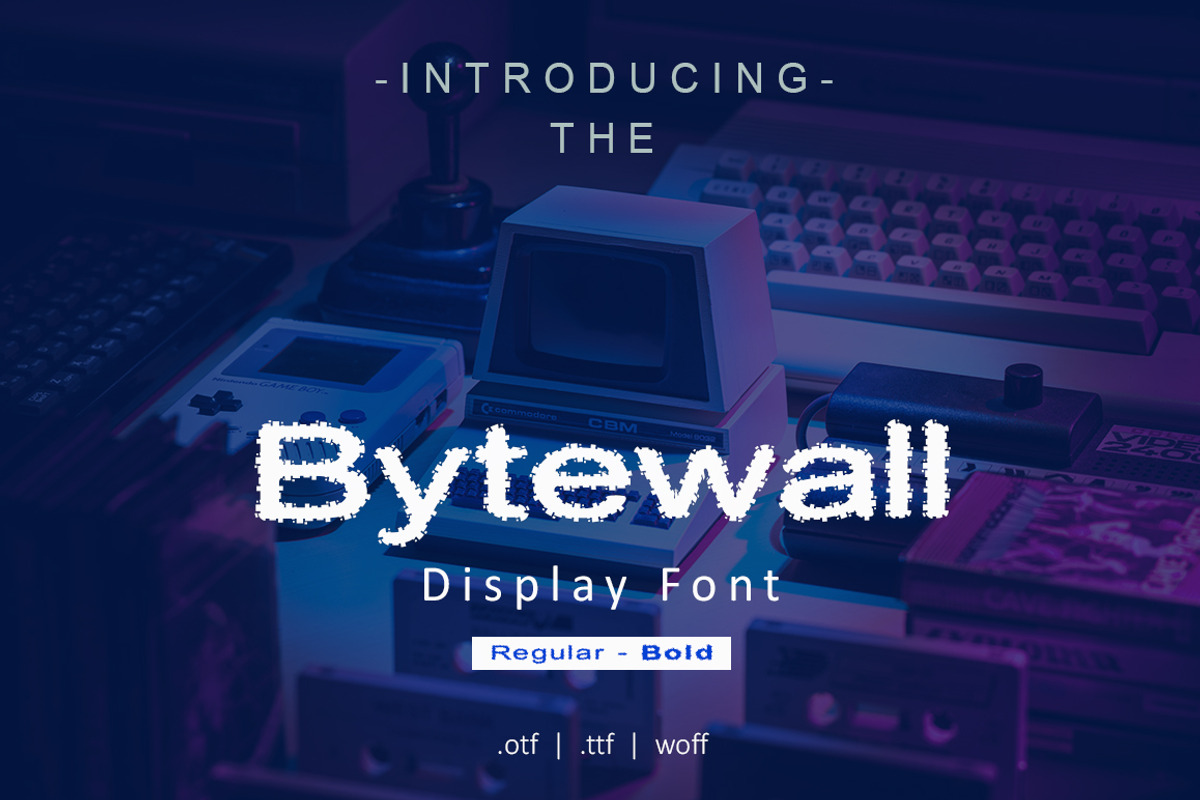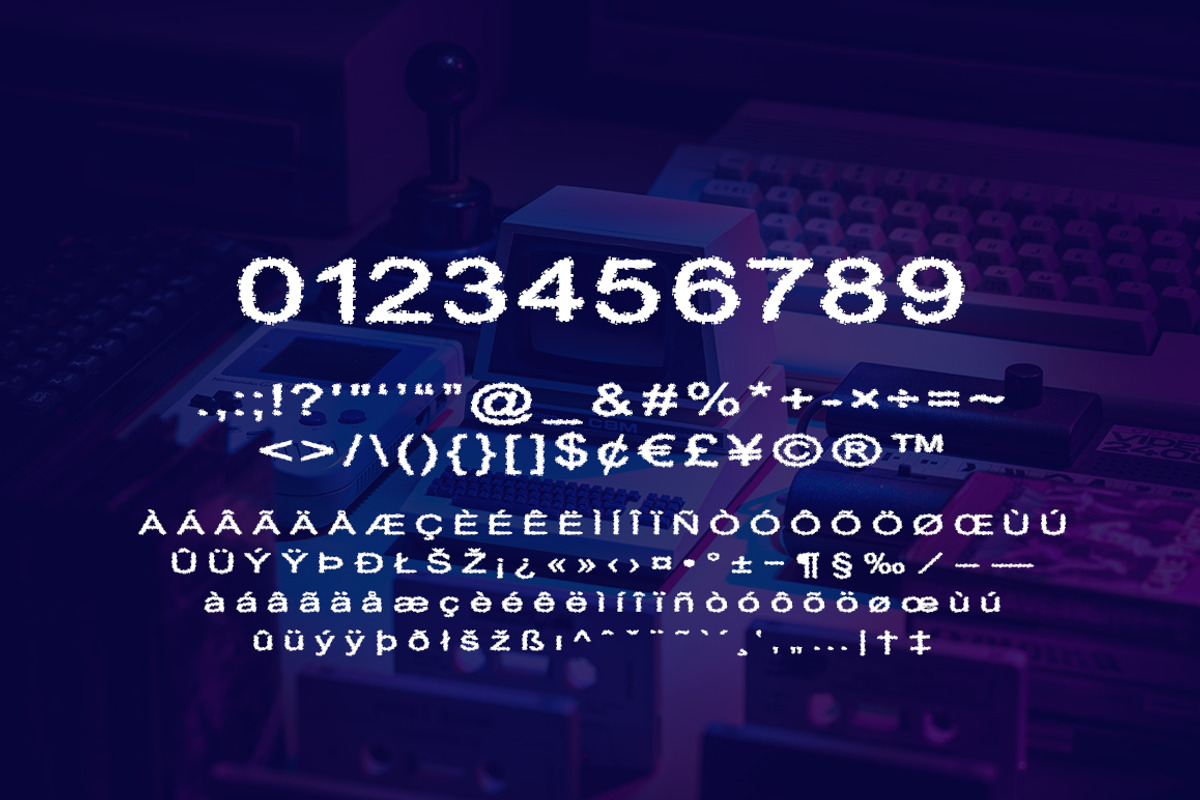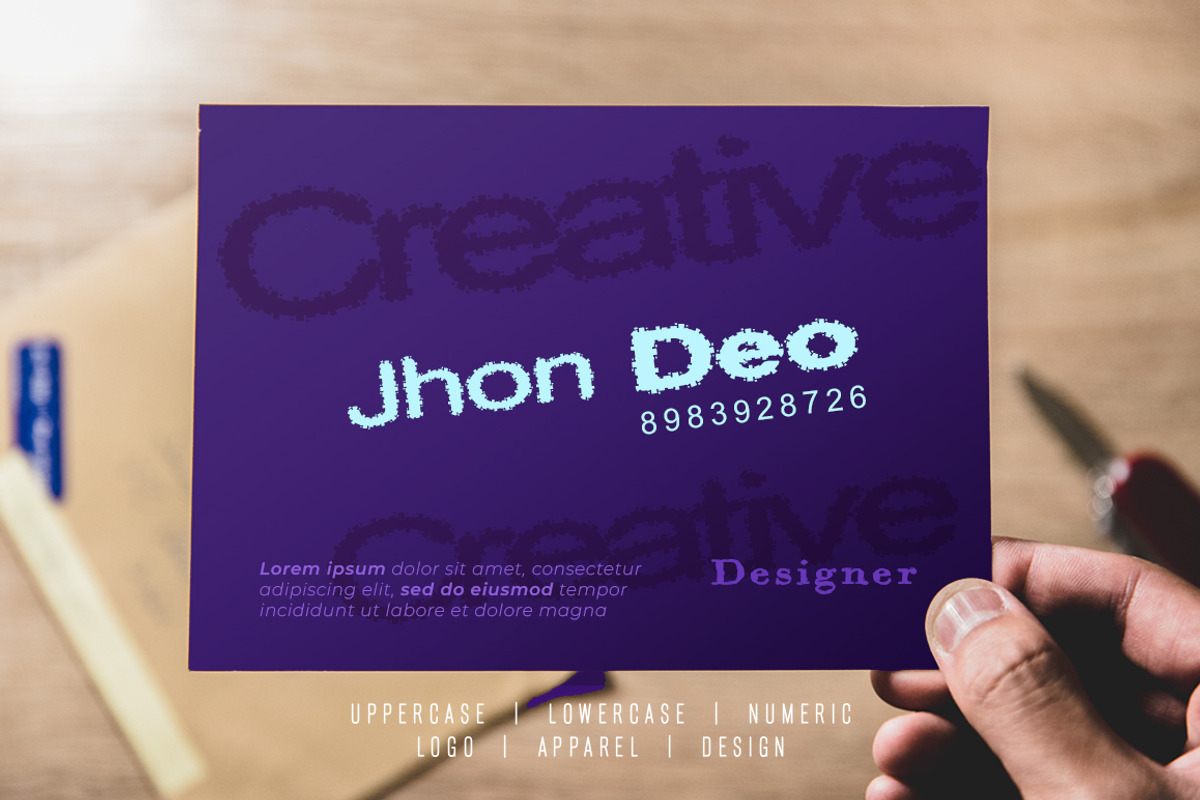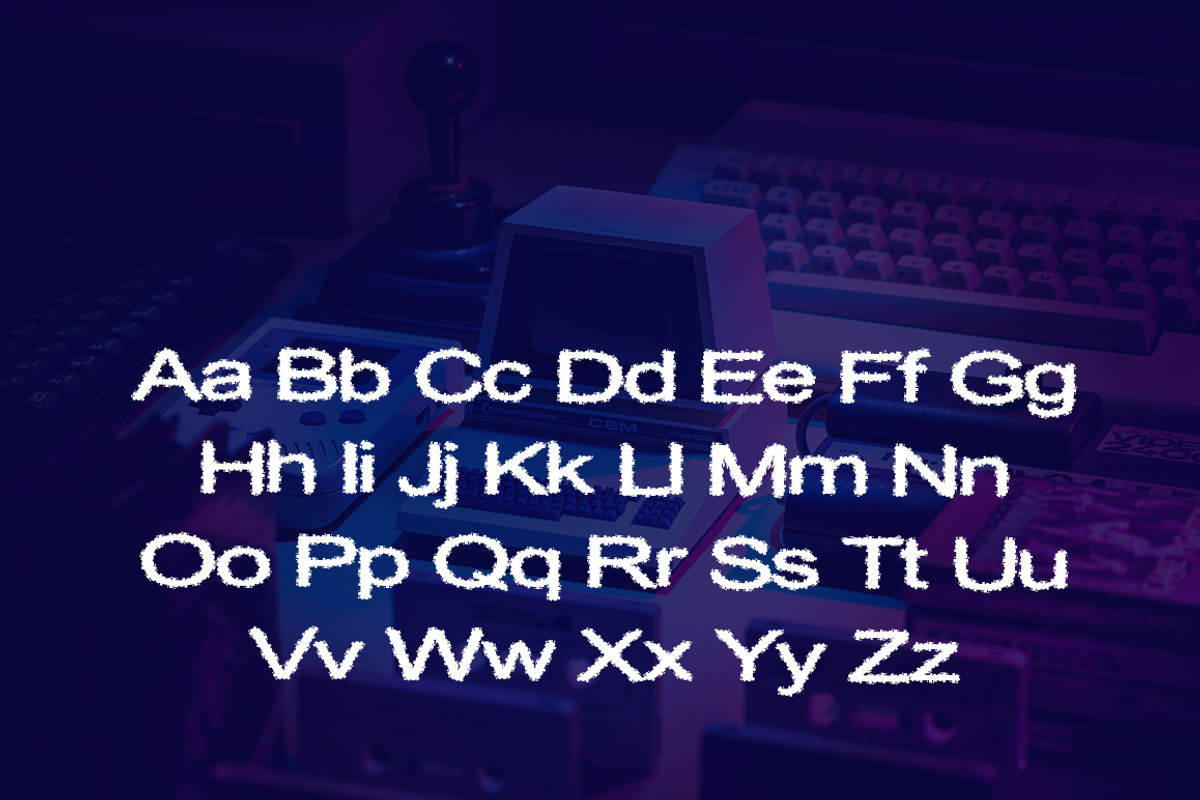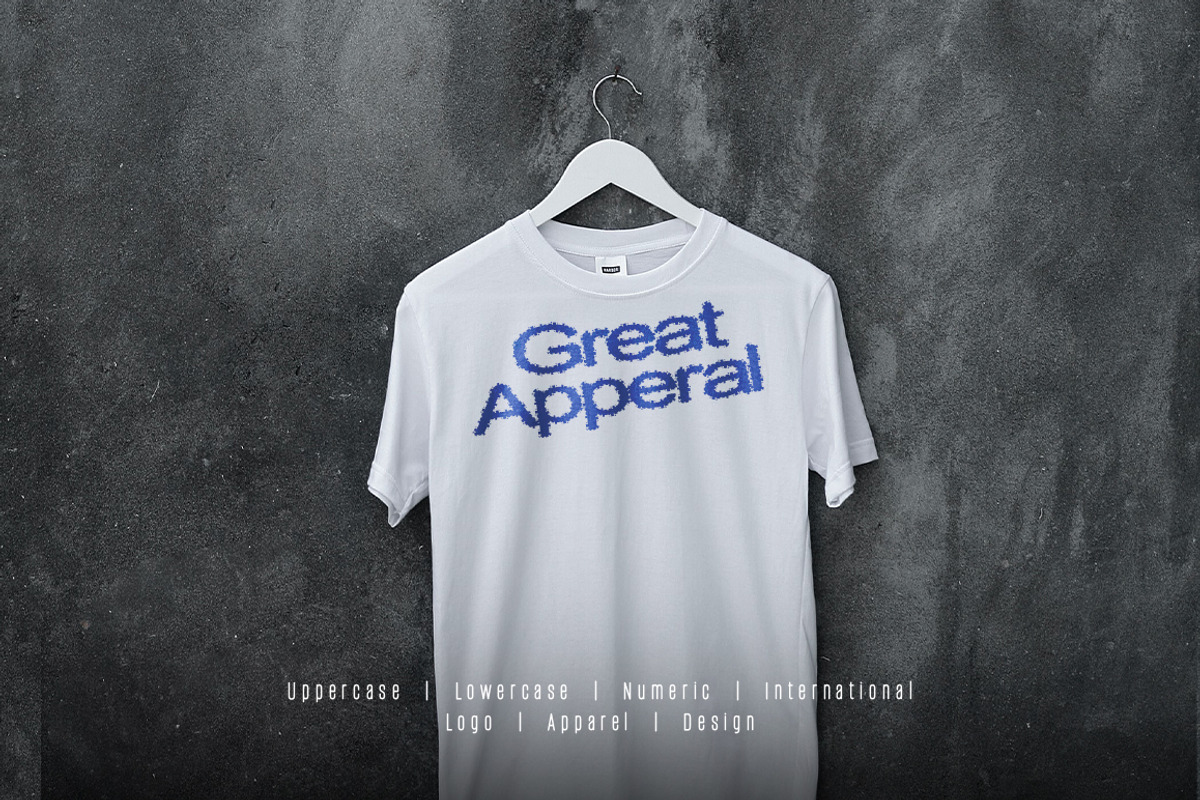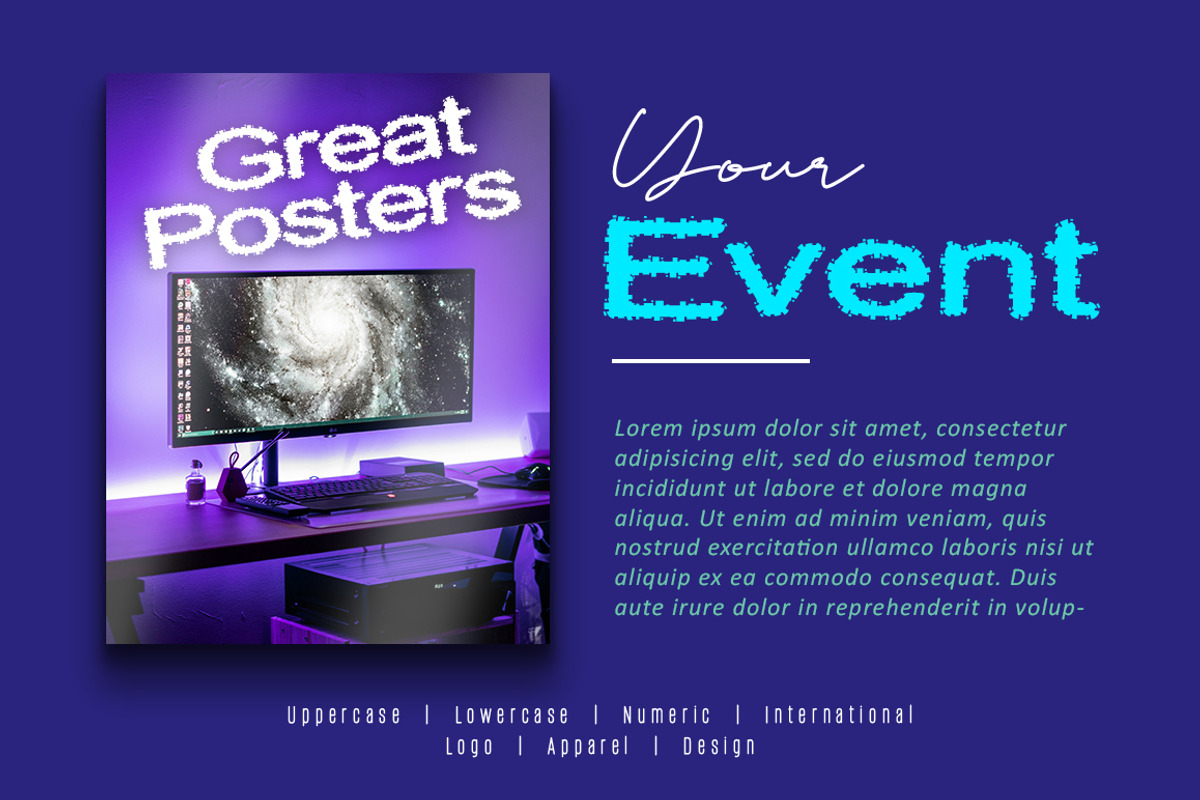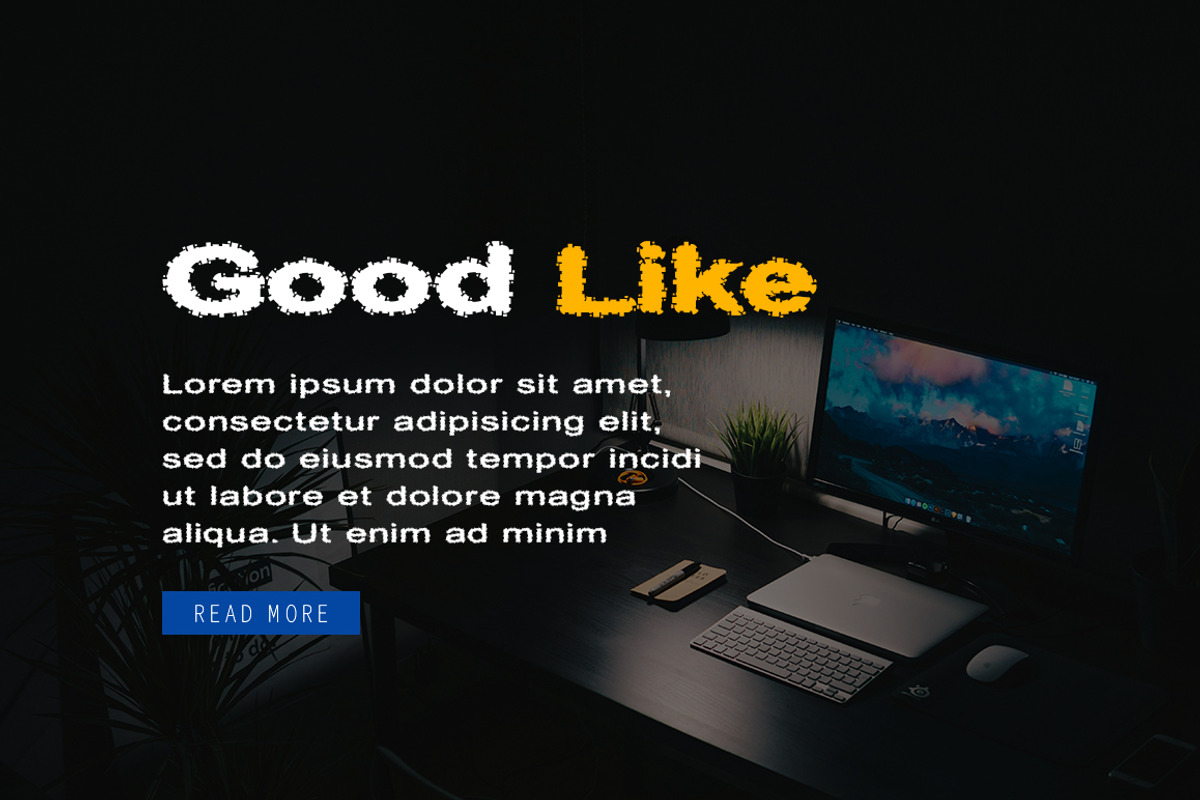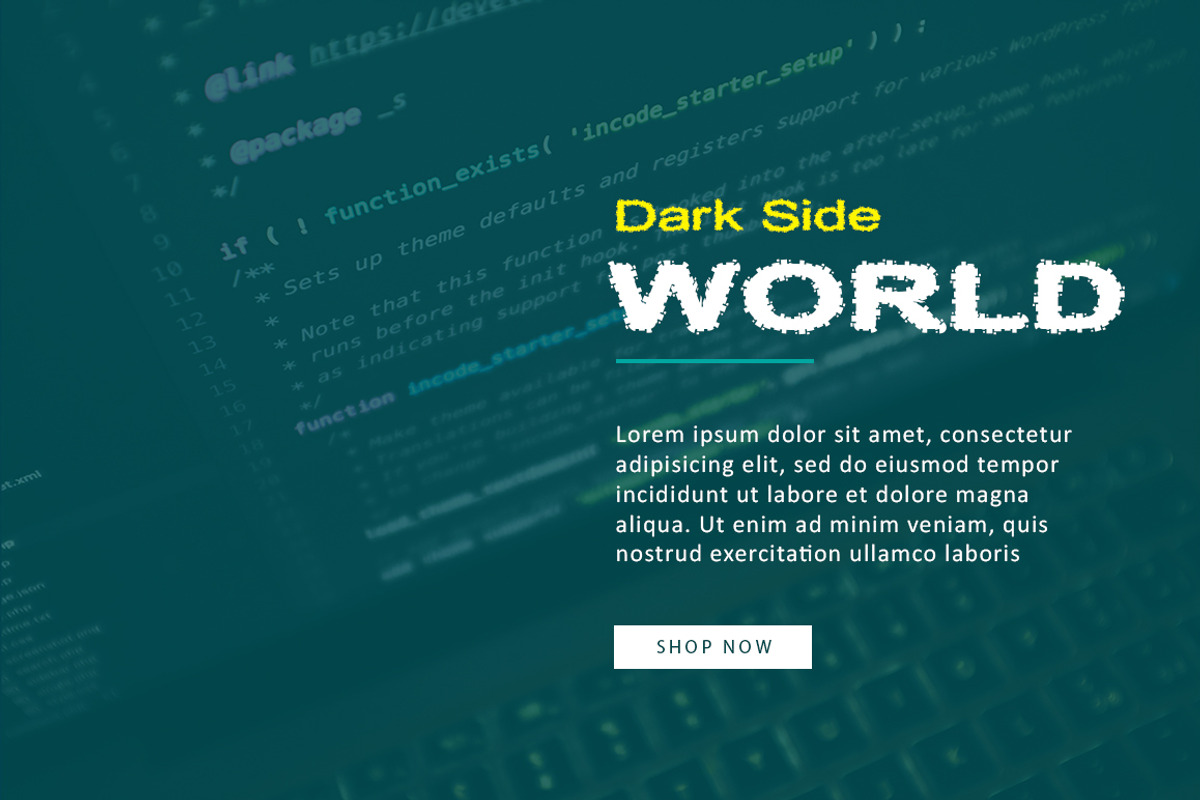
Bytewall Display Font
Bytewall Display Font very suitable for poster, for logo, music cover, clothing, and many many cool design projects. Bytewall Display Font is uppercase, lowercas and numeric.